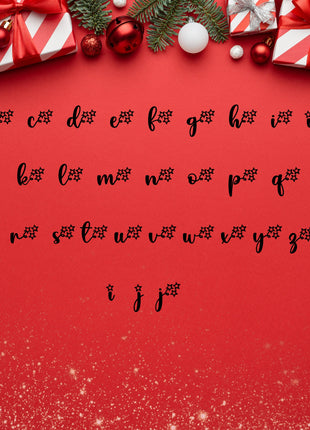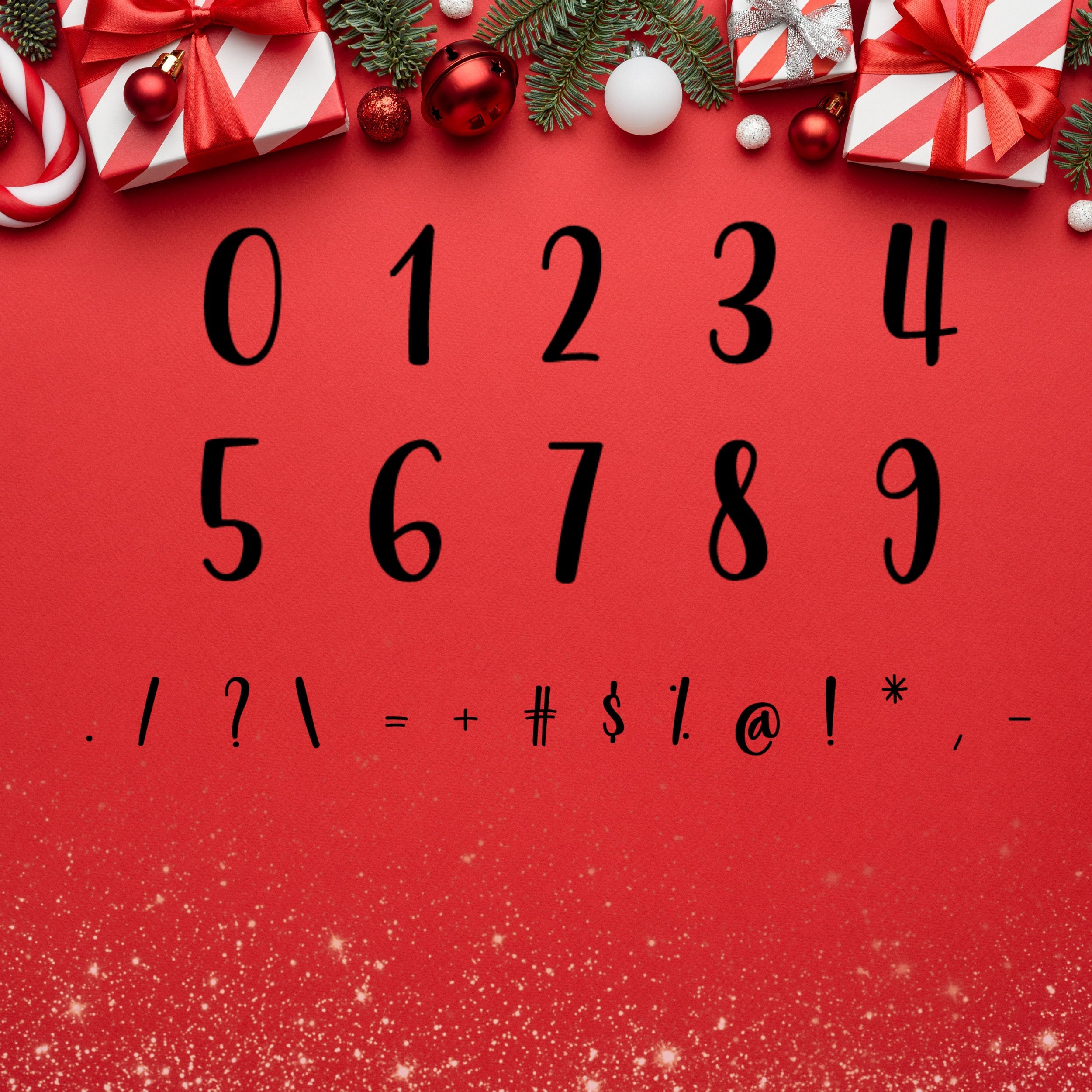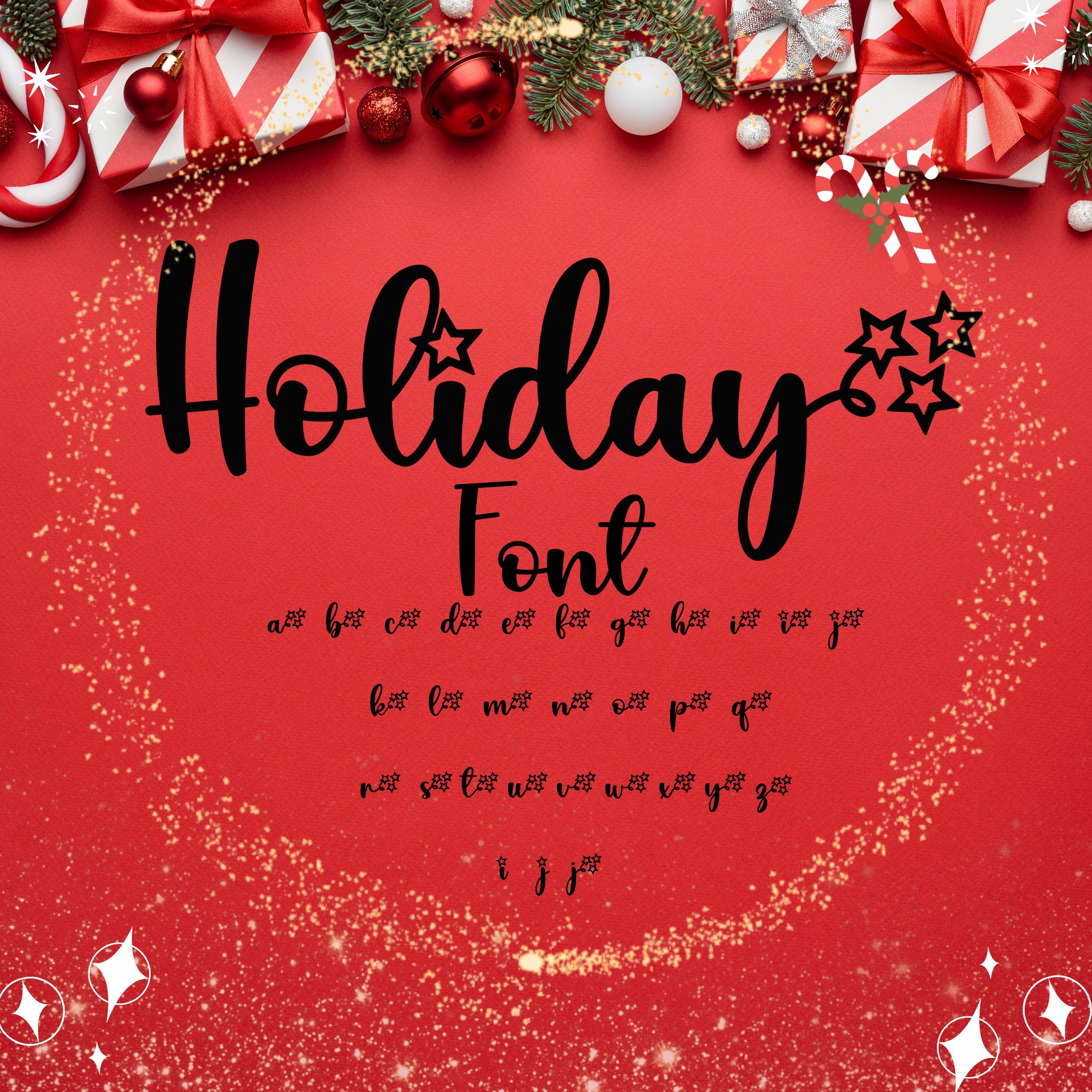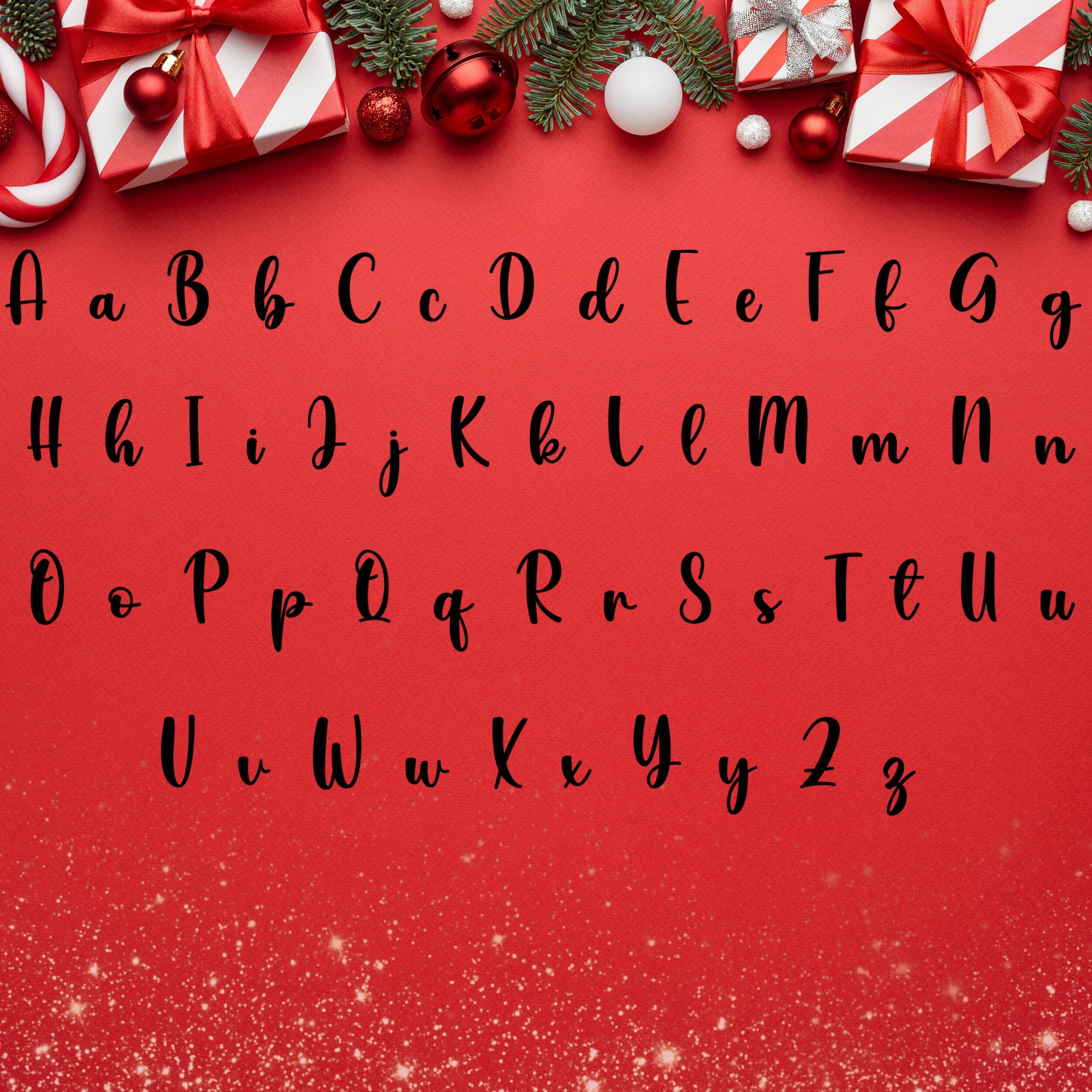
Christmas Script Stars Font Bundle for Cricut, Canva, Procreate
A festive script font with starry ornaments and playful swashes crafted for holiday projects. Includes TTF and OTF font files along with PDFs and a ZIP bundle for easy access. Compatible with Cricut Design Space, Canva, Procreate, Adobe apps, and Microsoft Office for instant creativity. Commercial use is permitted for unlimited projects while the raw font files cannot be redistributed. The glyph set offers alternate swashes, ligatures, and private-use ornaments for custom lettering. Simple installation steps are provided for Windows, Mac, iPhone/iPad and popular design apps. Files are vector-friendly so designs stay crisp at any scale for print or web. Instant download delivers files immediately after purchase and seller support is available for setup help. Perfect for holiday cards, SVG crafting, branding, and seasonal social graphics.
Glyphs Alternate swashes, ligatures, private-use star ornaments and heart tails